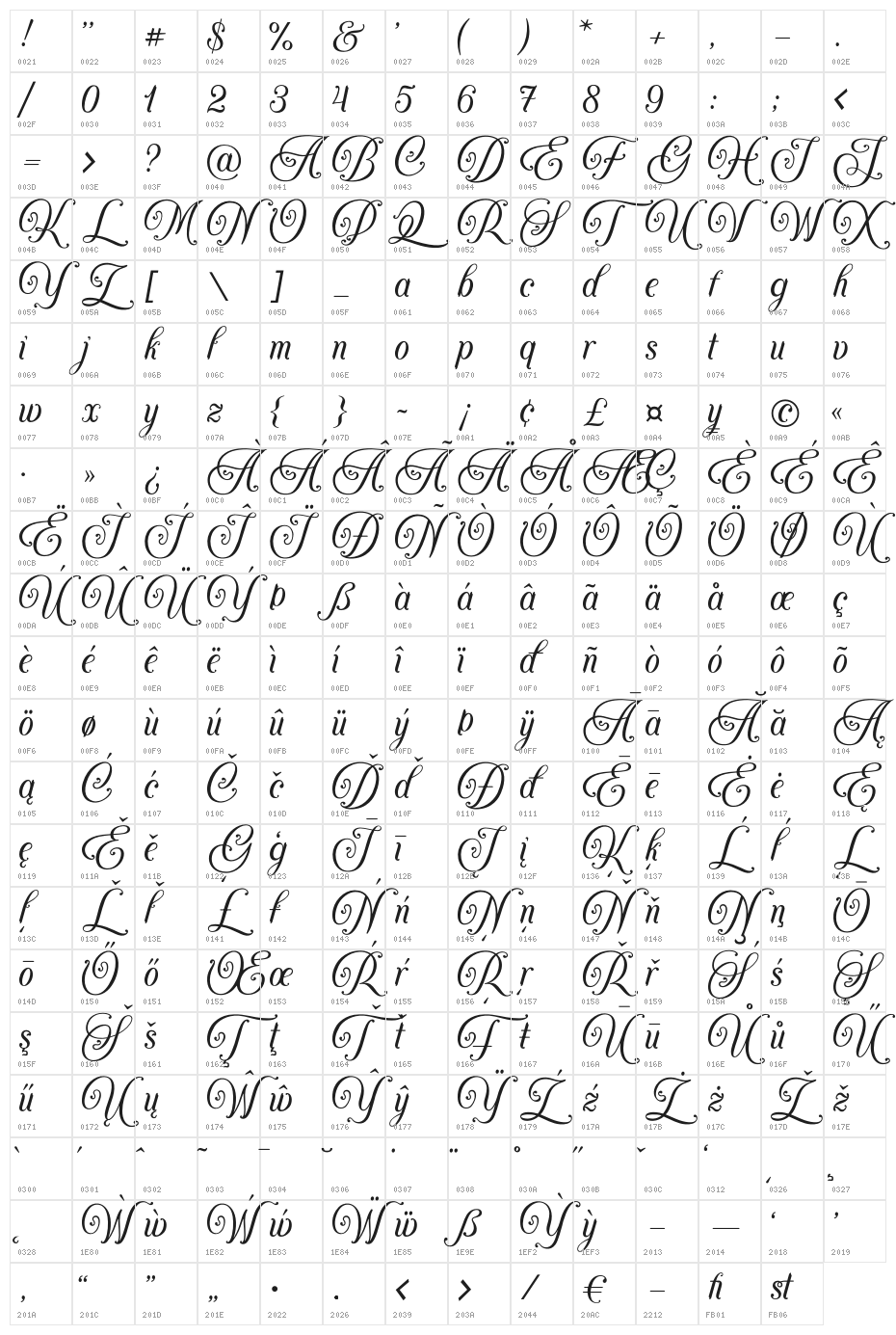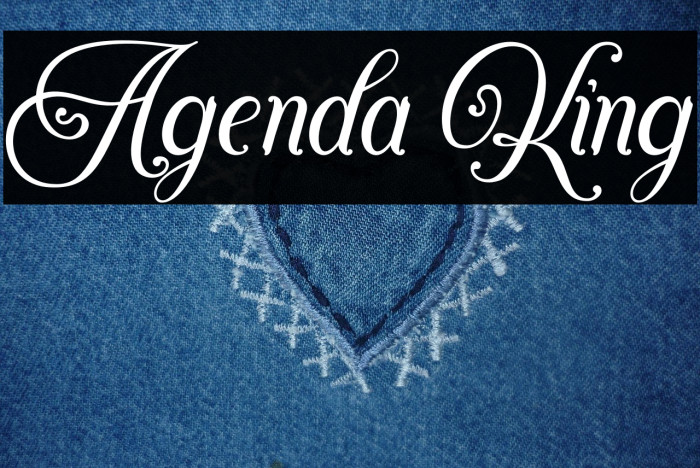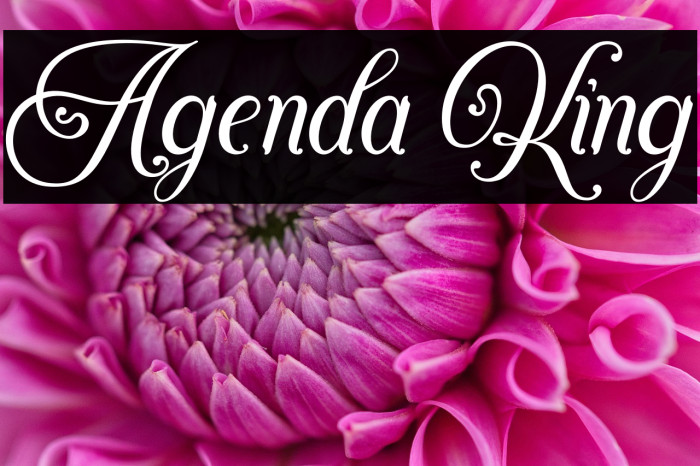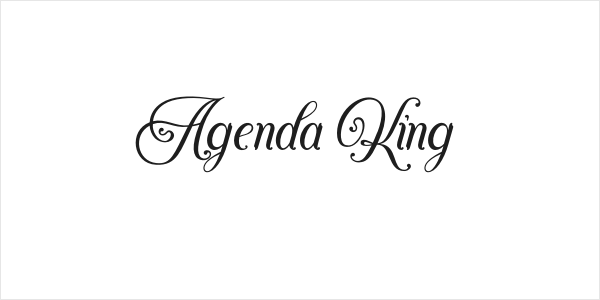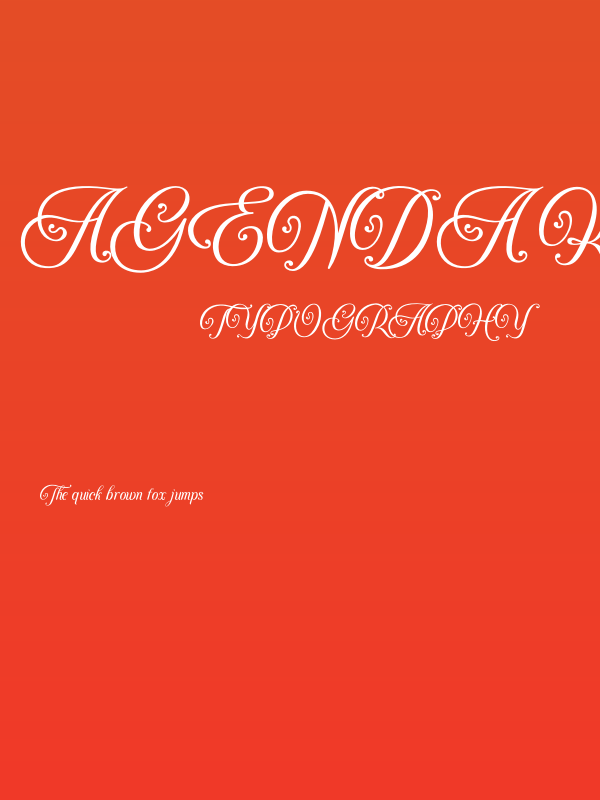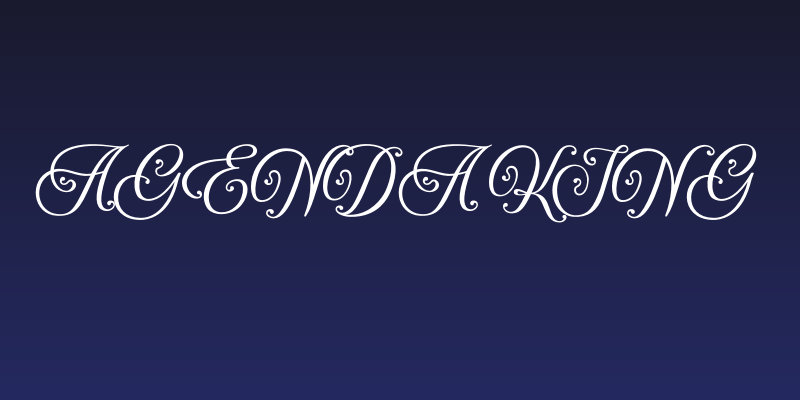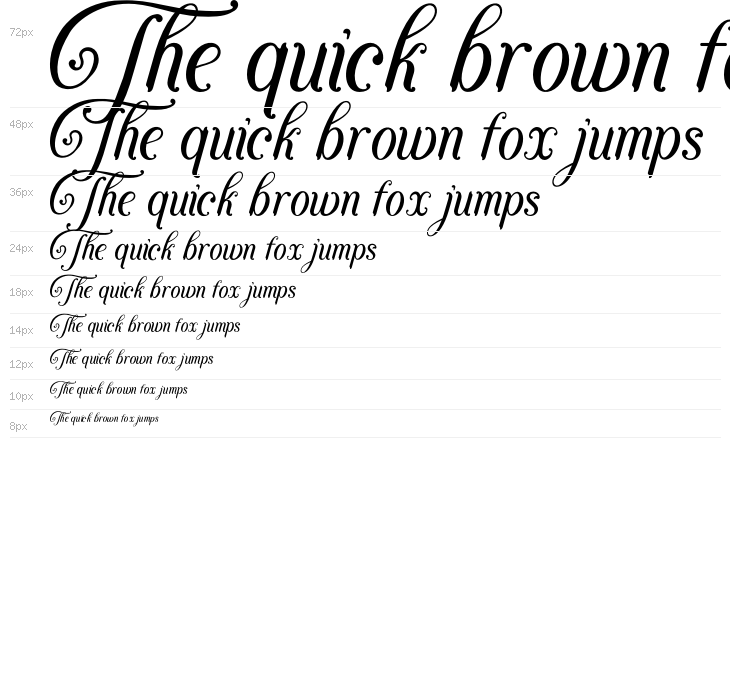
Agenda King Font
Agenda King Description
This elegant script font features a sophisticated and flowing design, characterized by its ornate and decorative swirls. The uppercase letters are particularly elaborate, with intricate loops and flourishes that give a sense of grandeur and formality. The lowercase letters maintain a more subdued elegance, with smooth curves and a slight slant that enhances readability. The numerals are consistent with the overall style, offering a balance of clarity and decorative flair. Special characters are thoughtfully designed to match the font's aesthetic, making it suitable for a variety of formal and decorative applications.
| Use Case | Logos, Invitations, Decorative Text |
| Proposed Projects | Ideal for wedding invitations, luxury branding, formal event programs, and elegant signage. |